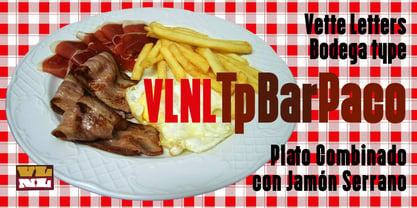
VLNL TpBarPaco™
by VetteLetters
About VLNL TpBarPaco Font Family
Sometimes, especially after a long night of drinking in a bar or bodega, you do not want fancy, sophisticated food. You want to bite into a big, juicy burger. TpBarPaco is exactly that. A straight-forward, big and bold typeface. Like if Paco has done it himself. VLNL TpBarPaco, designed by Martin Lorenz of TwoPoints, was inspired by the vernacular type found at traditional spanish bars in Barcelona. It’s simple and friendly shapes make it the perfect typeface for HUGE typographic solutions.
Designers: Martin Lorenz